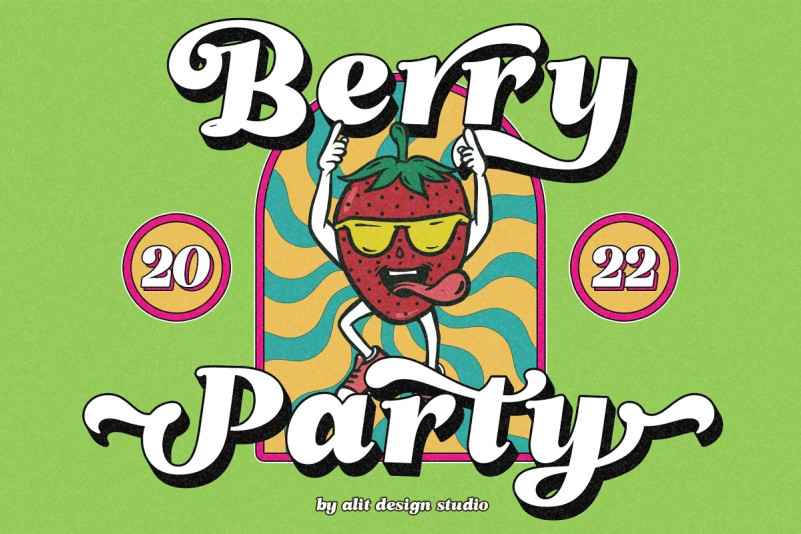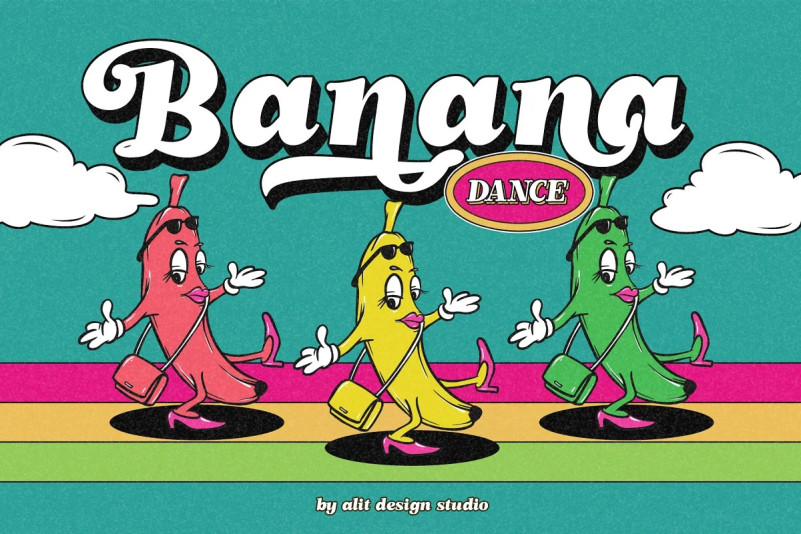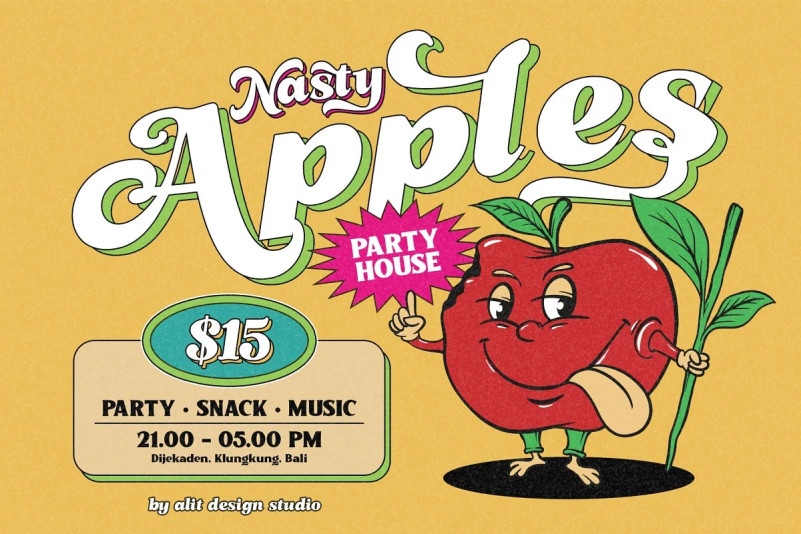
The Bringa Font
The Bringa Serif Font is a modern seri bold serif typeface inspired by stylish designs from the 80s to 90s. At that time the font style like “The Bringa Typeface” had a firm and trendy impression. The Bringa Typeface has a wide selection of alternative characters and swashes that make it easy to create bold retro-style designs.
The Bringa Typeface is very suitable for making designs with retro concepts, simple and playful designs, for example making magazine cover designs, music covers, YouTube thumbs, text headers, logotypes and so on with an elegant retort theme. Besides that this font is very easy to use both in design and non-design programs because everything changes and glyphs are supported by Unicode (PUA).